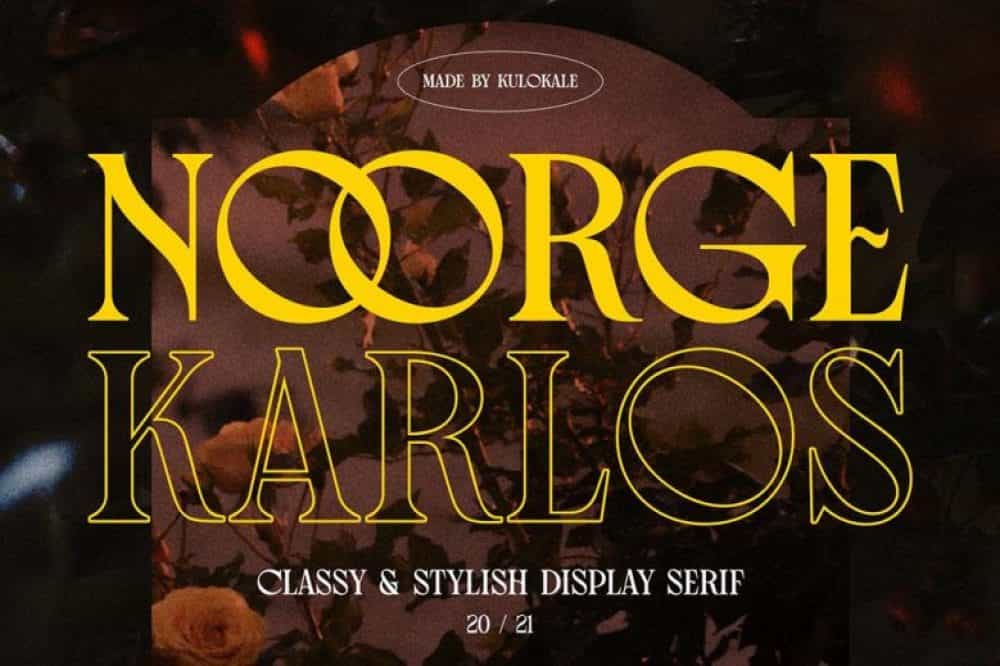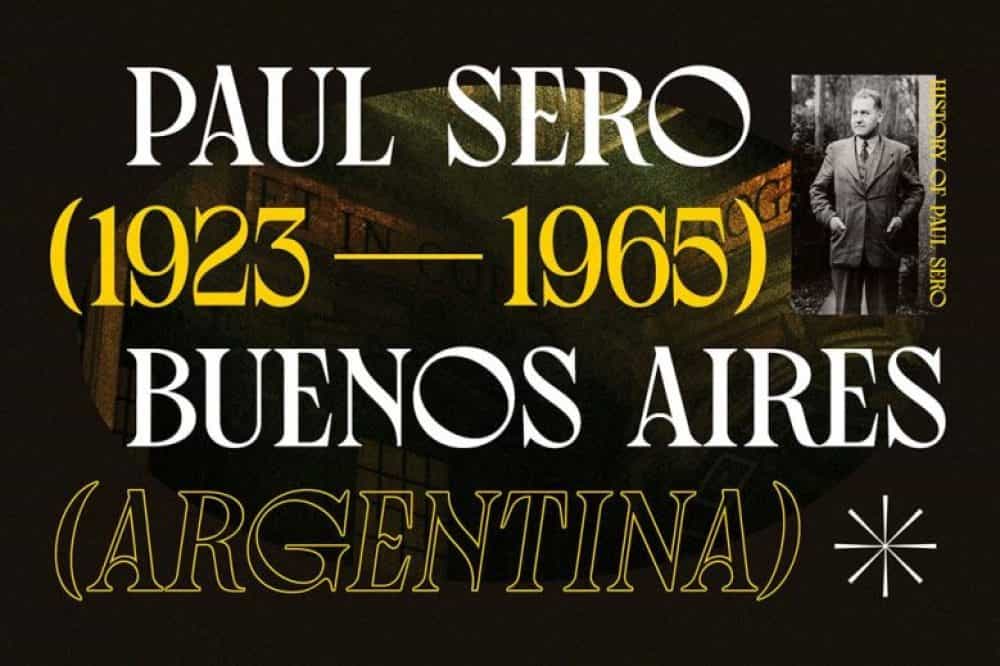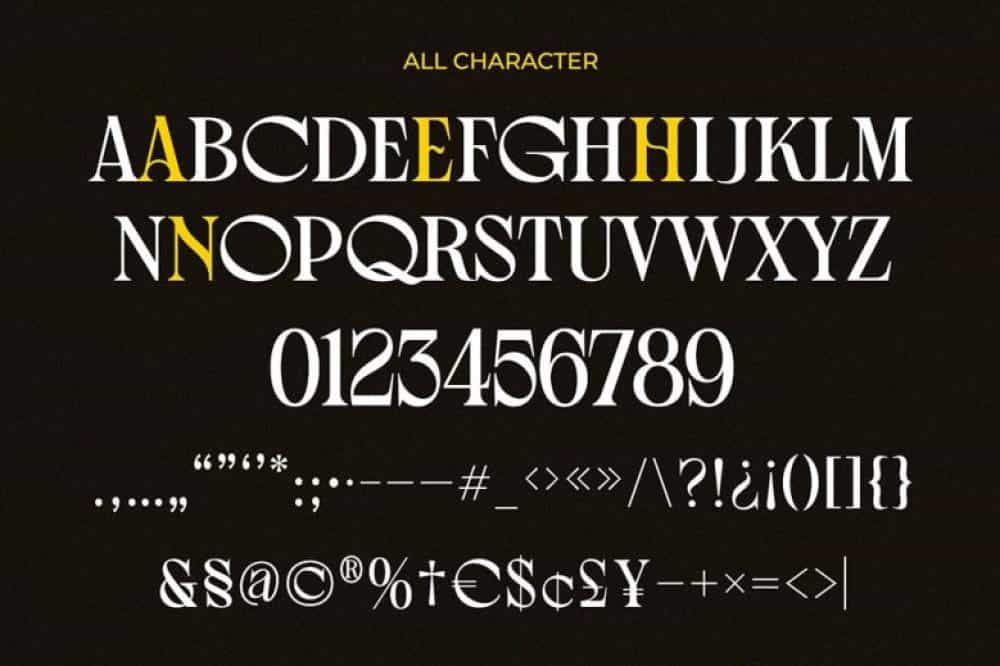
Noorge Karlos is an elegant serif typeface perfect for branding, packaging design, logotypes, headlines, titles or editorial use. Encoded using Unicode PUA it provides access to all characters without the need for special design software.